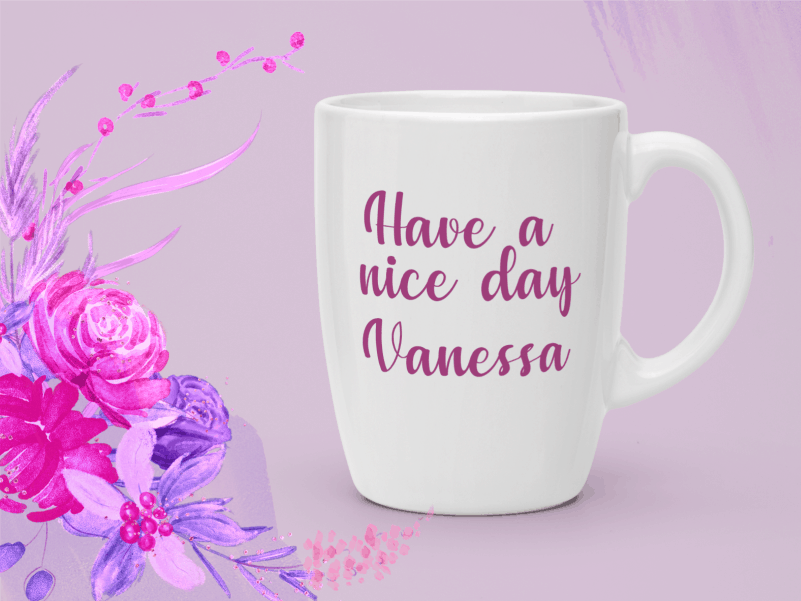
Your Love Tonight Calligraphy Font is a romantic, bold handwritten font. It is ideal for any design project that requires a personal touch, such as a letter to a friend or an invitation card.